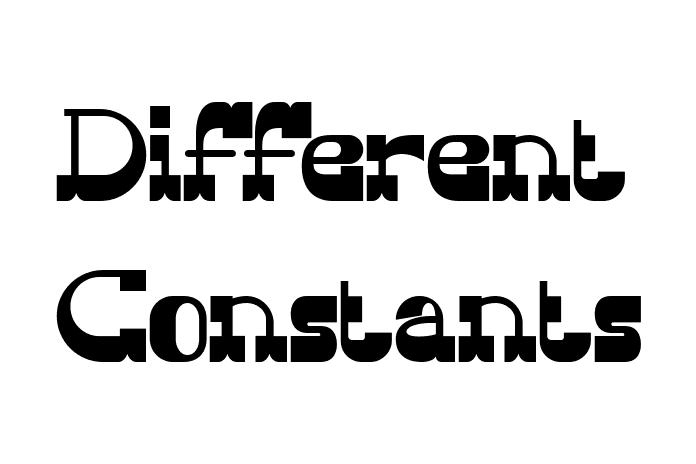
Carola
Carola fonts includes lowercase, numerals, a large range of punctuation. Serif font with modern style. Created for poster, web design, branding, illustrations, badges and some other works
Font designer Muntab_Art
Font Family Carola
Typeface classification Basic,Serif